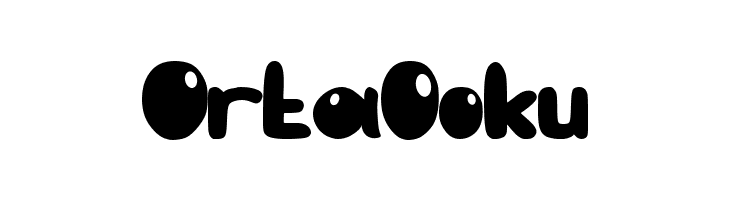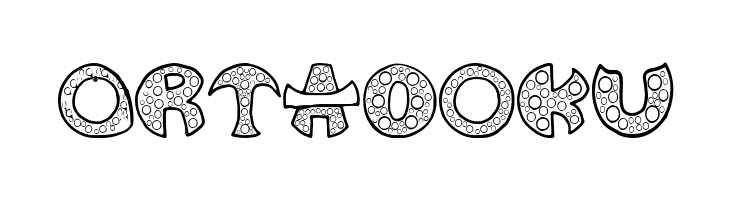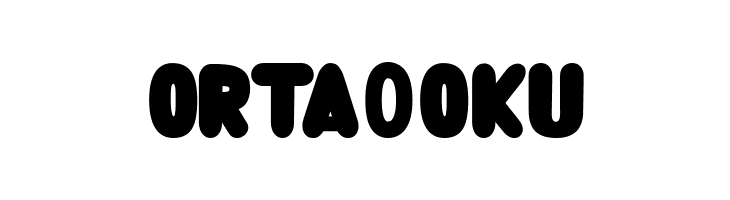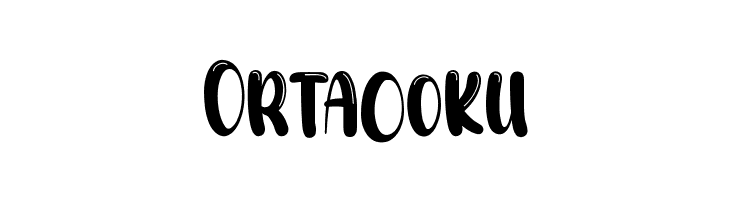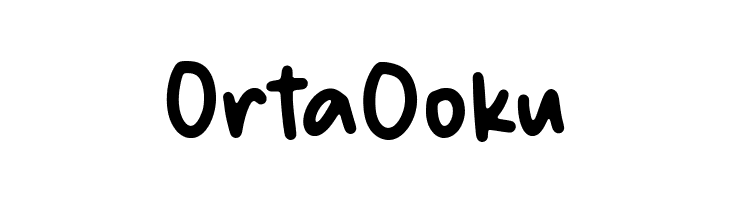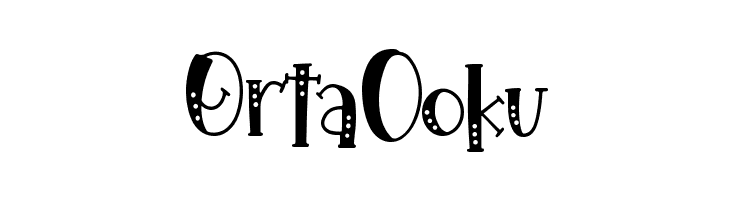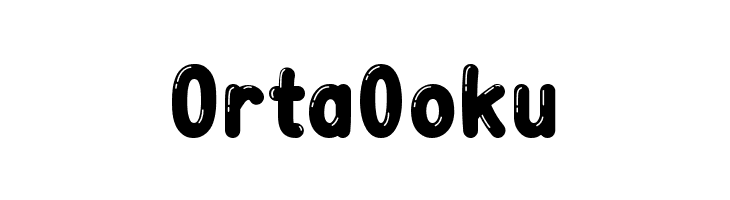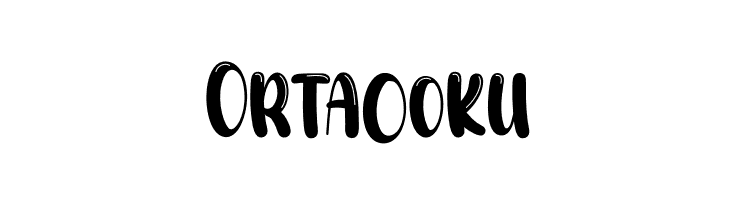
A playful, bold typeface with rounded, bubbly characters.
( Fonts by Andrean Prabowo )
A bold, playful font with rounded, bubble-like characters.
( Fonts by Ditya Ananto )
A playful, bubble-themed decorative font with intricate circular patterns.
( Fonts by The Typerex )
A playful, bold font with rounded, bubbly characters and a lively appearance.
( Fonts by The Typerex )
A playful, bold font with a bubble-like design and shadow effect.
A playful and whimsical font with bold, rounded forms and decorative elements.
A playful, bubbly font with a hand-drawn, whimsical style.
( Fonts by StringLabs )
A bold, bubbly font with a shiny, playful style.
A playful, bold, and bubbly hand-drawn font with rounded strokes and a whimsical style.
( Fonts by Savira Faeyza Art )
A playful, bold font with rounded, bubble-like characters.